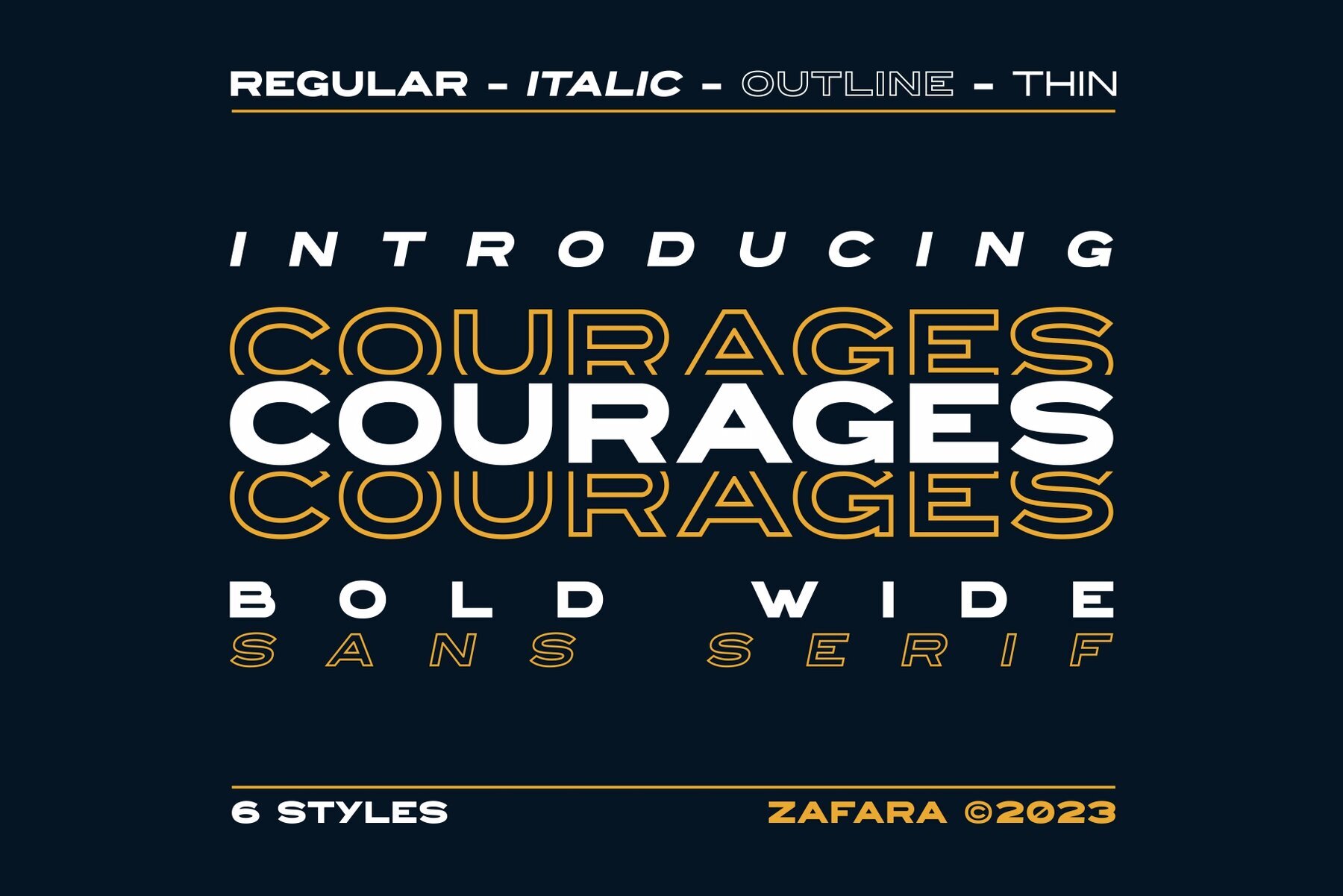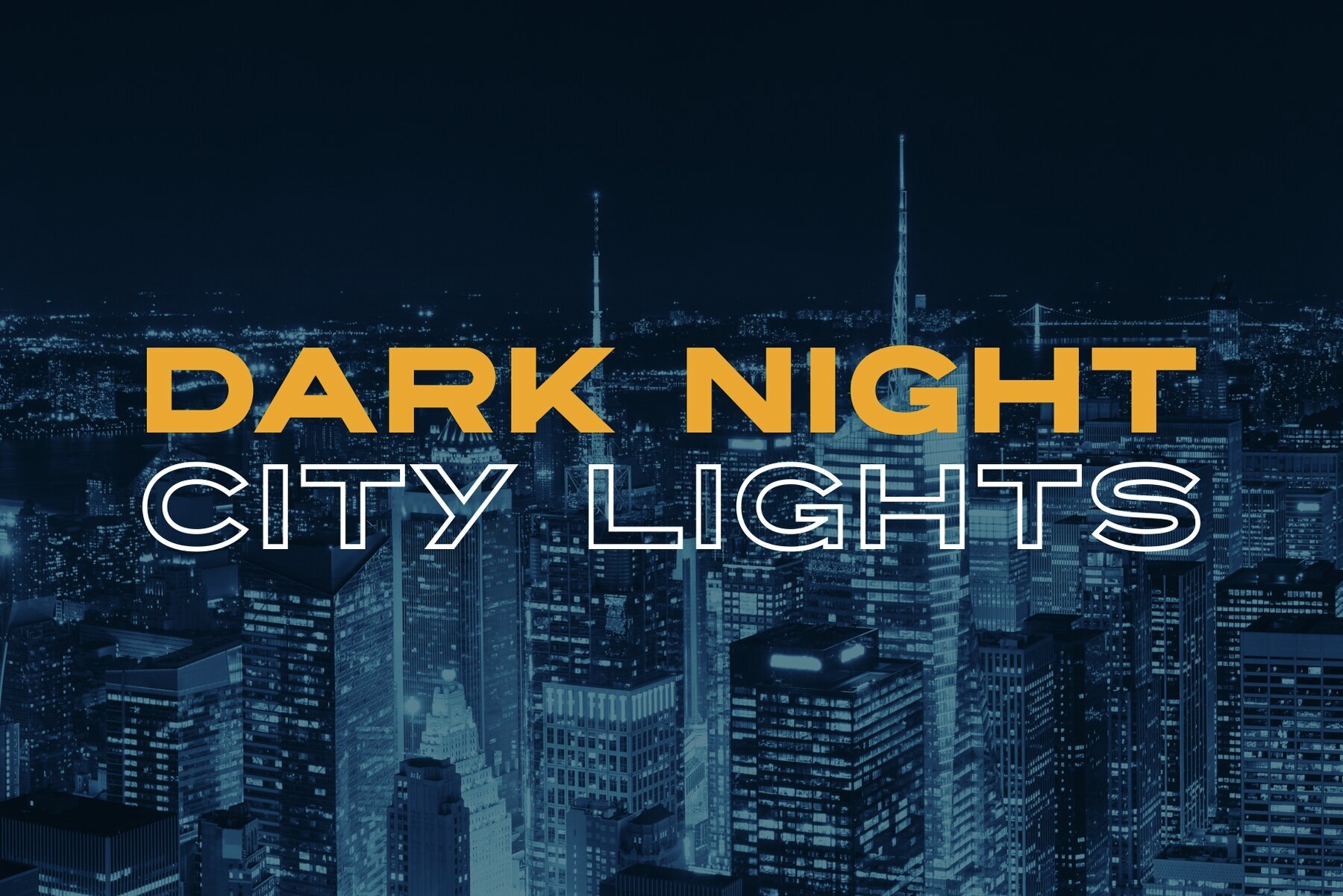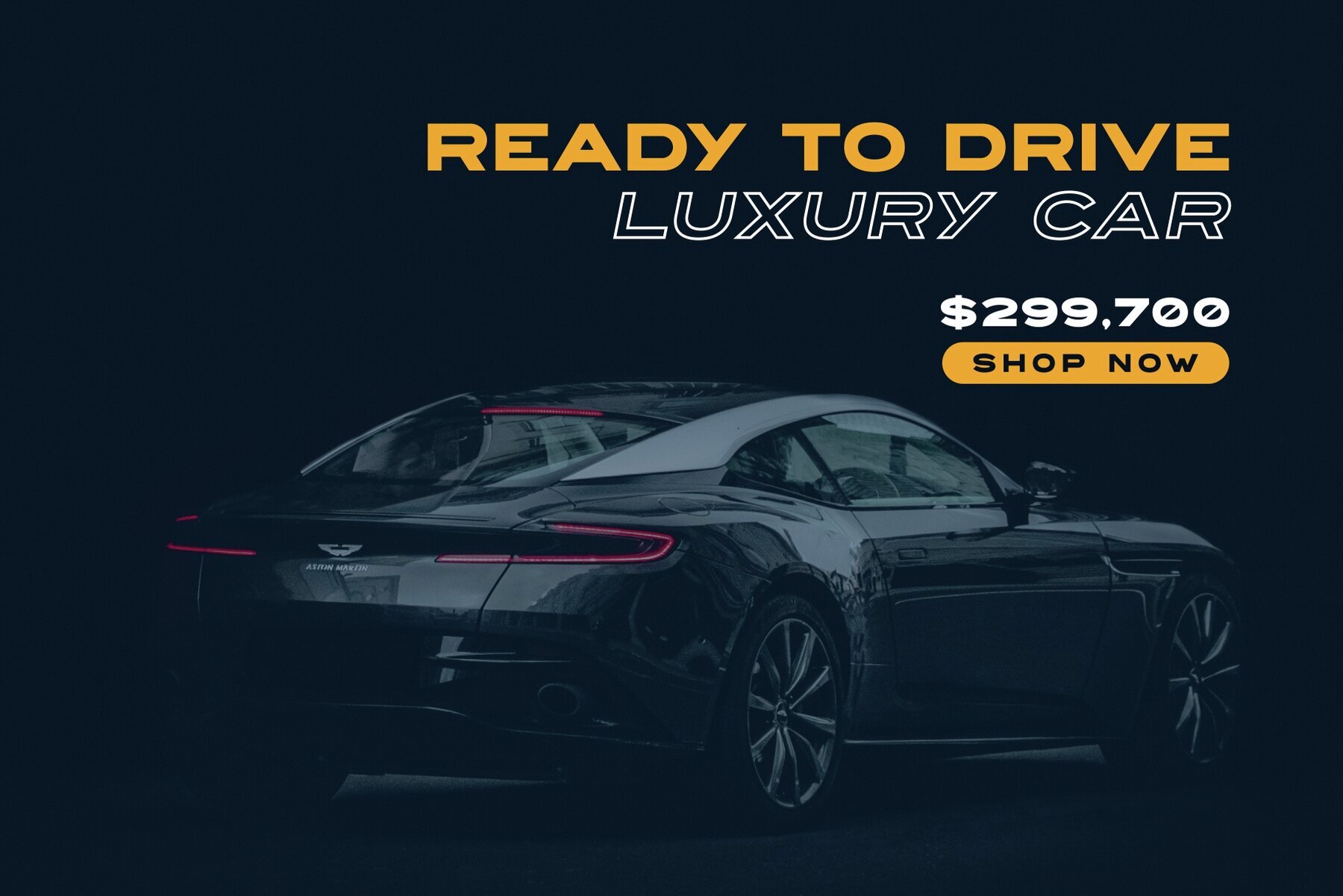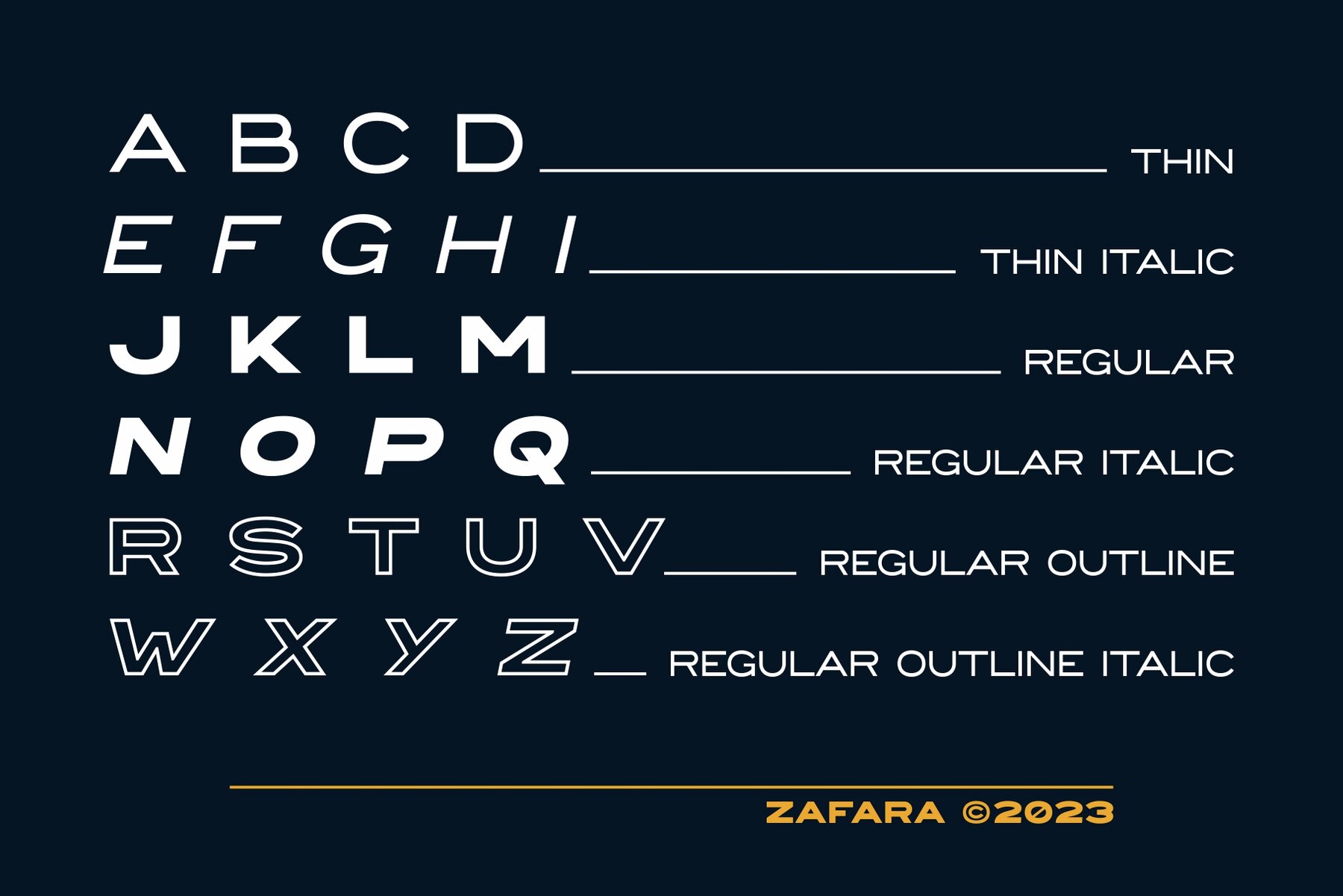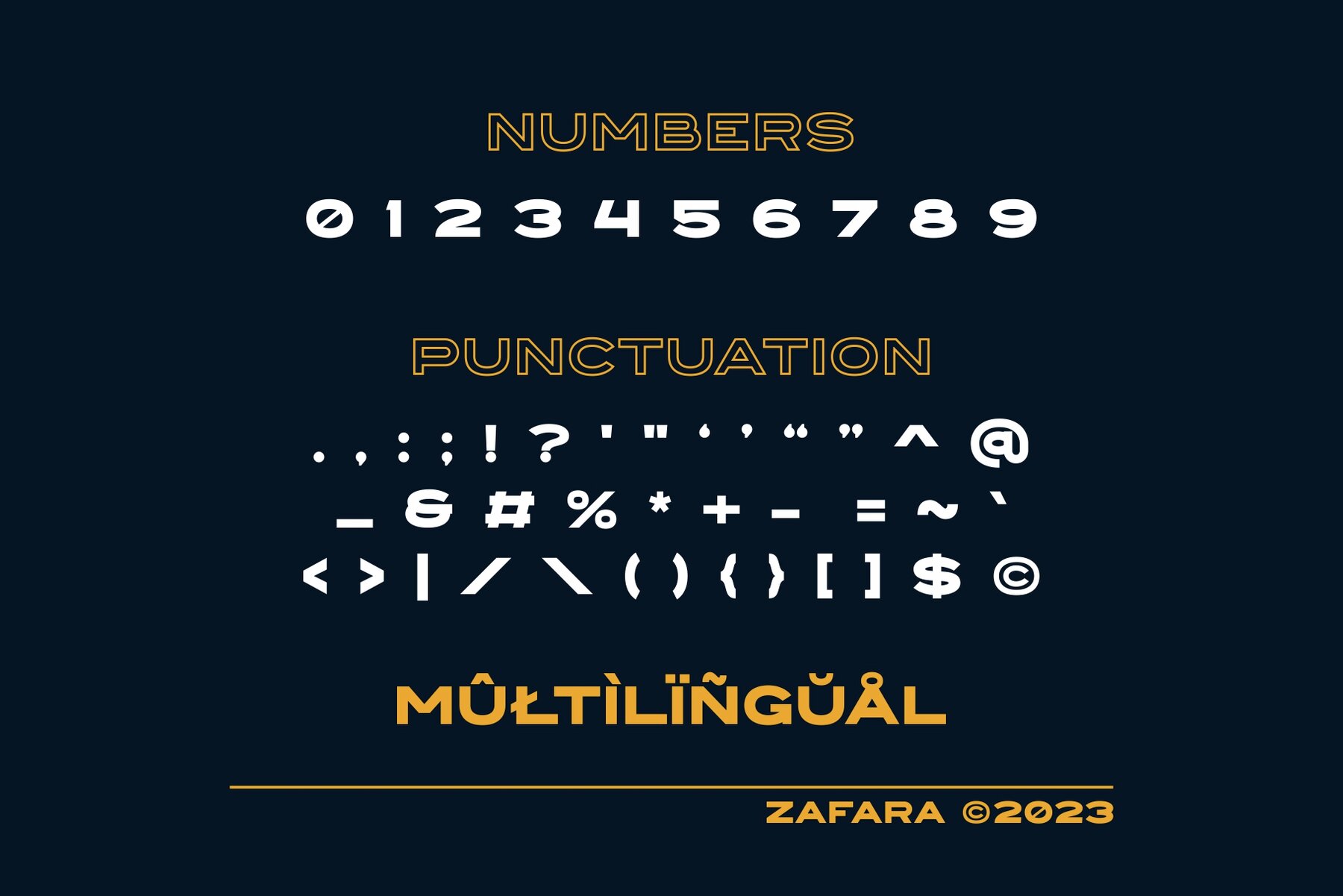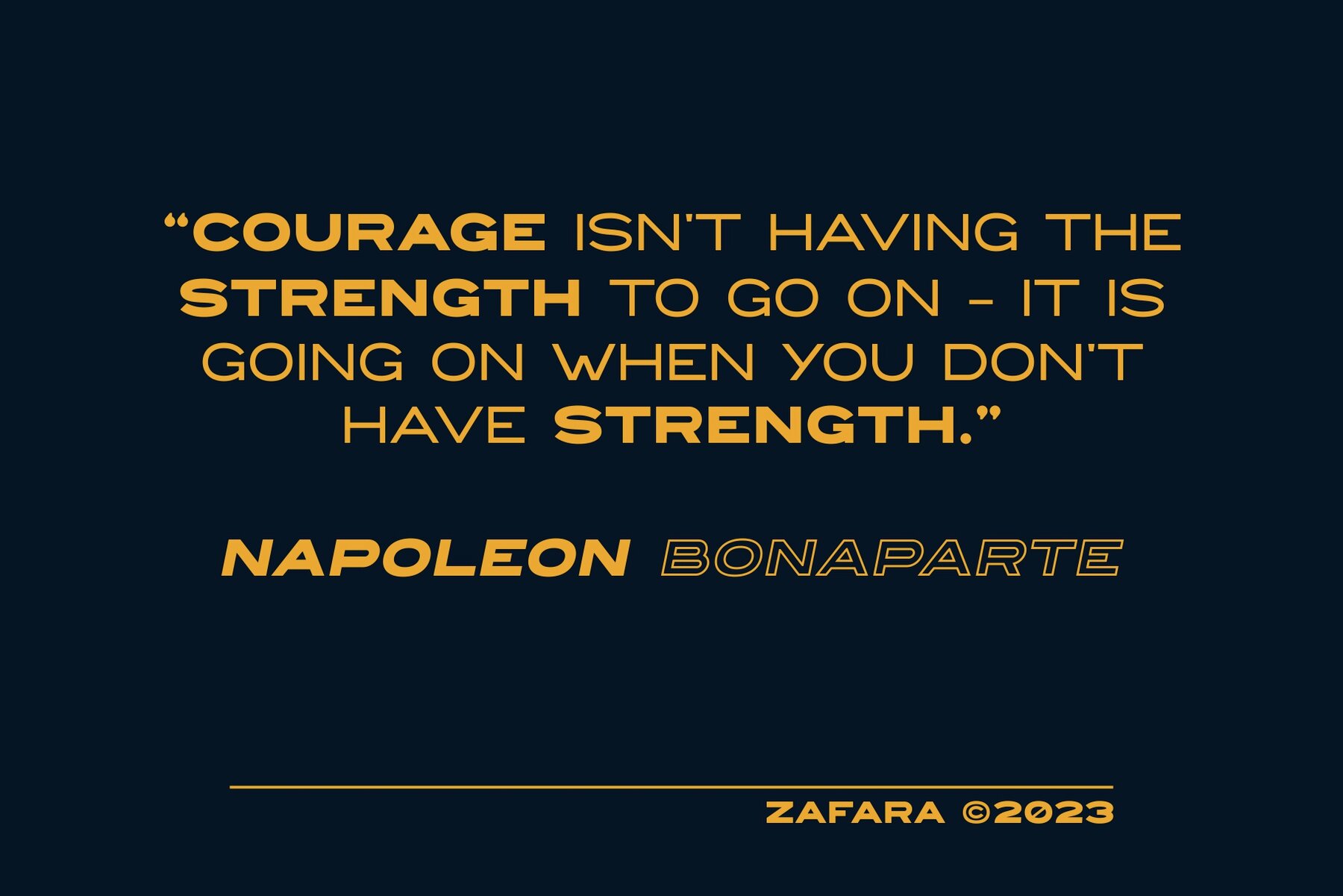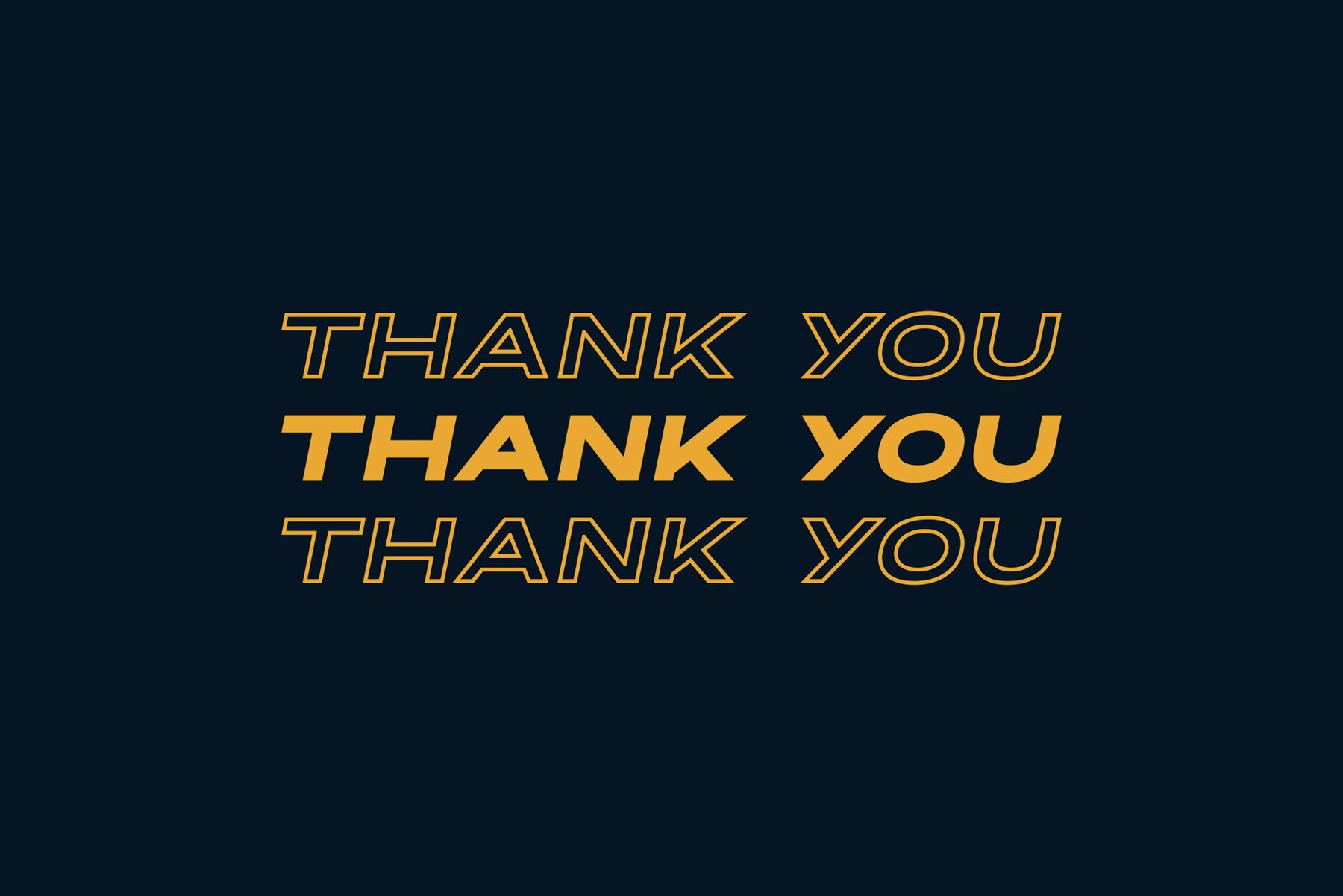
COURAGES Font
Courages font is a font with thick and wide strokes. This font can be used for headlines, titles, logotypes, magazines, and other types of text that need to be visible and easy to read. This font can also be used to create a sense of impact or drama in a design. The details: